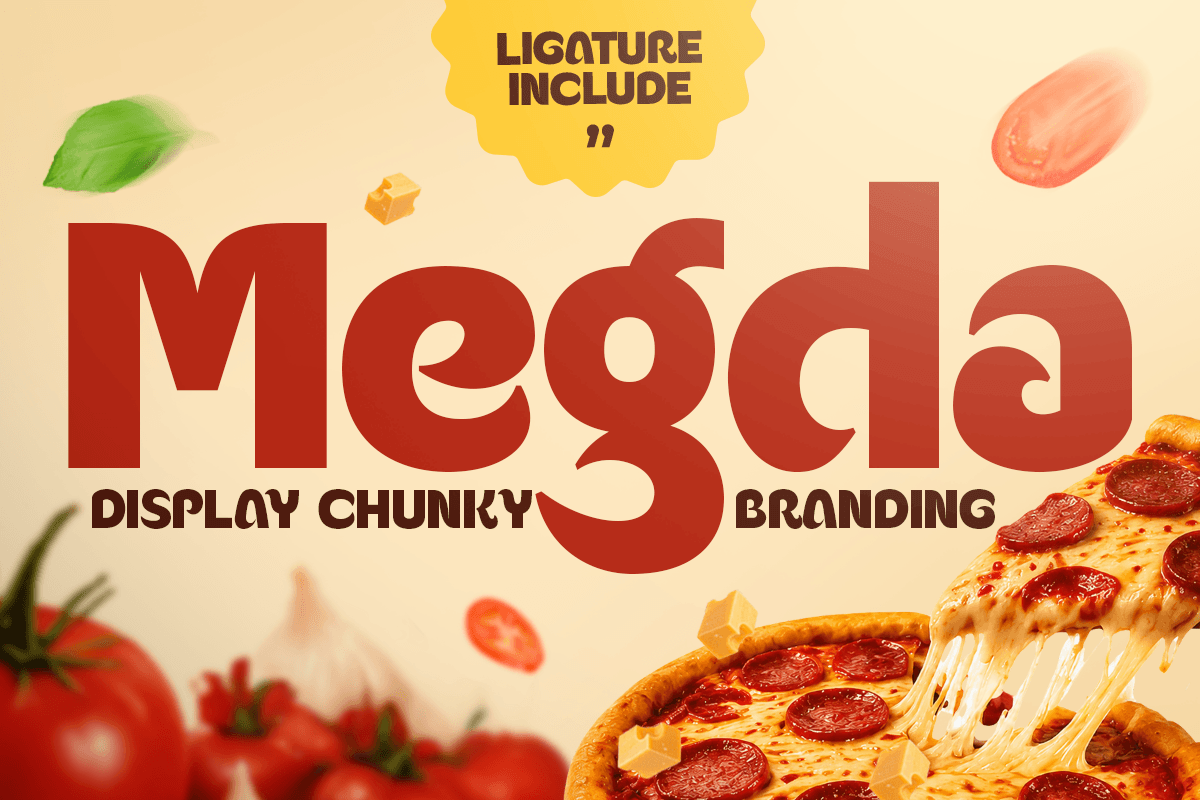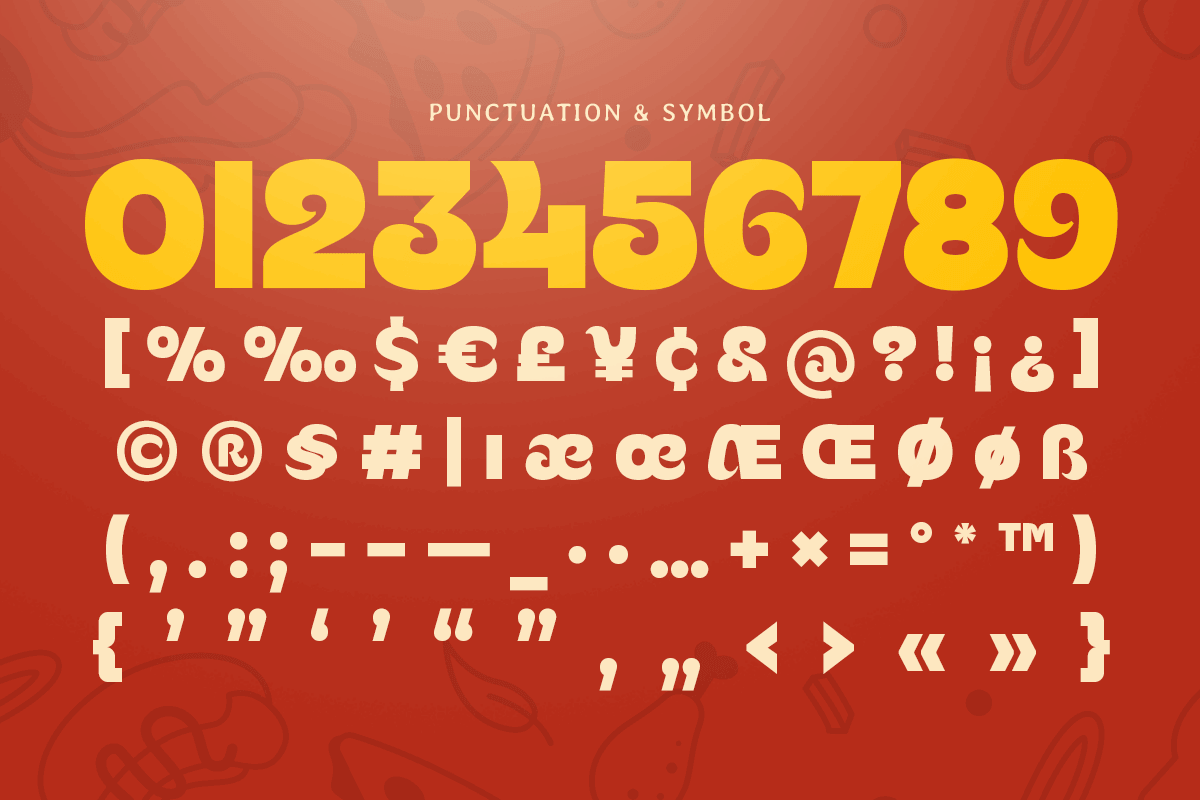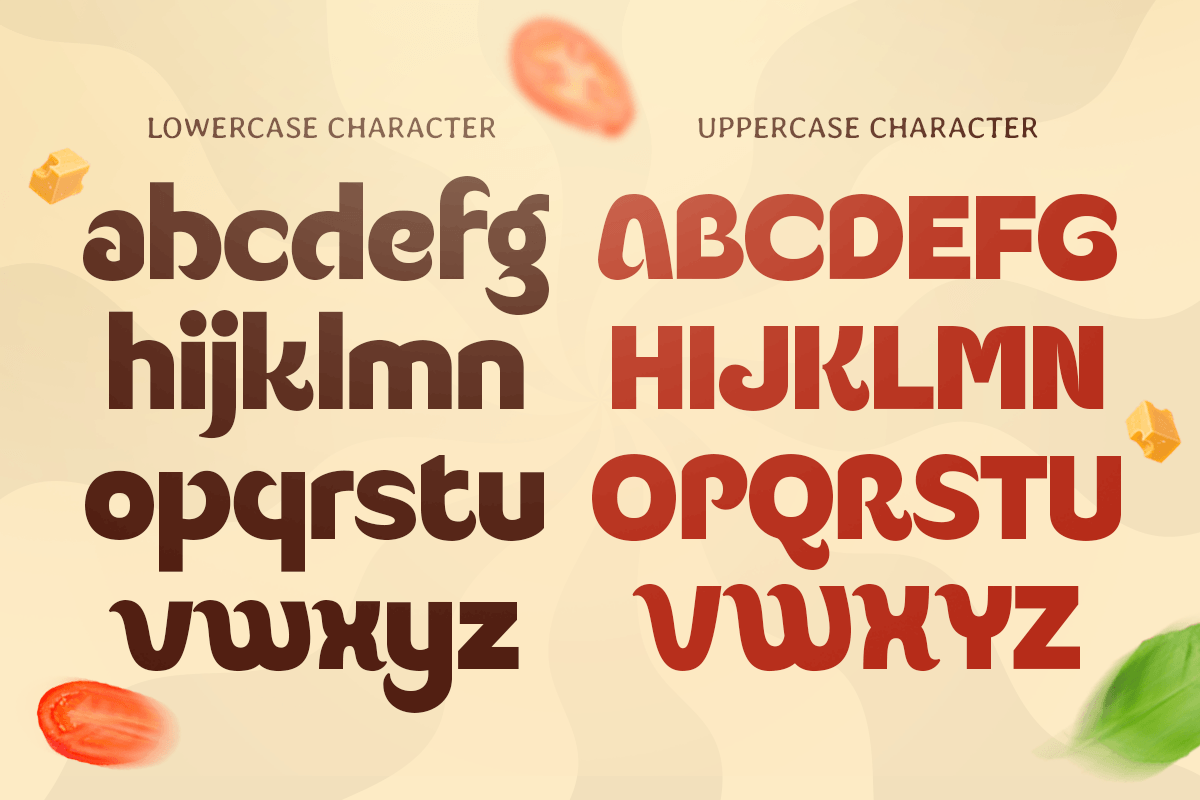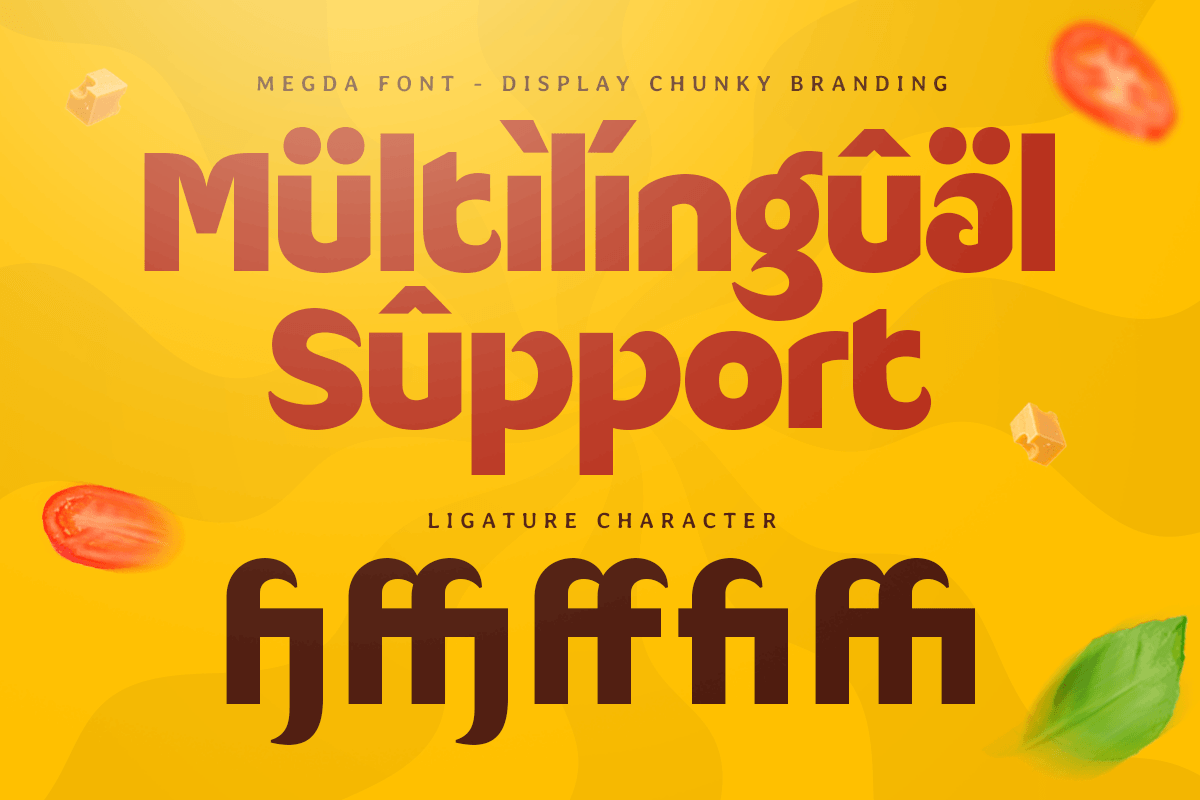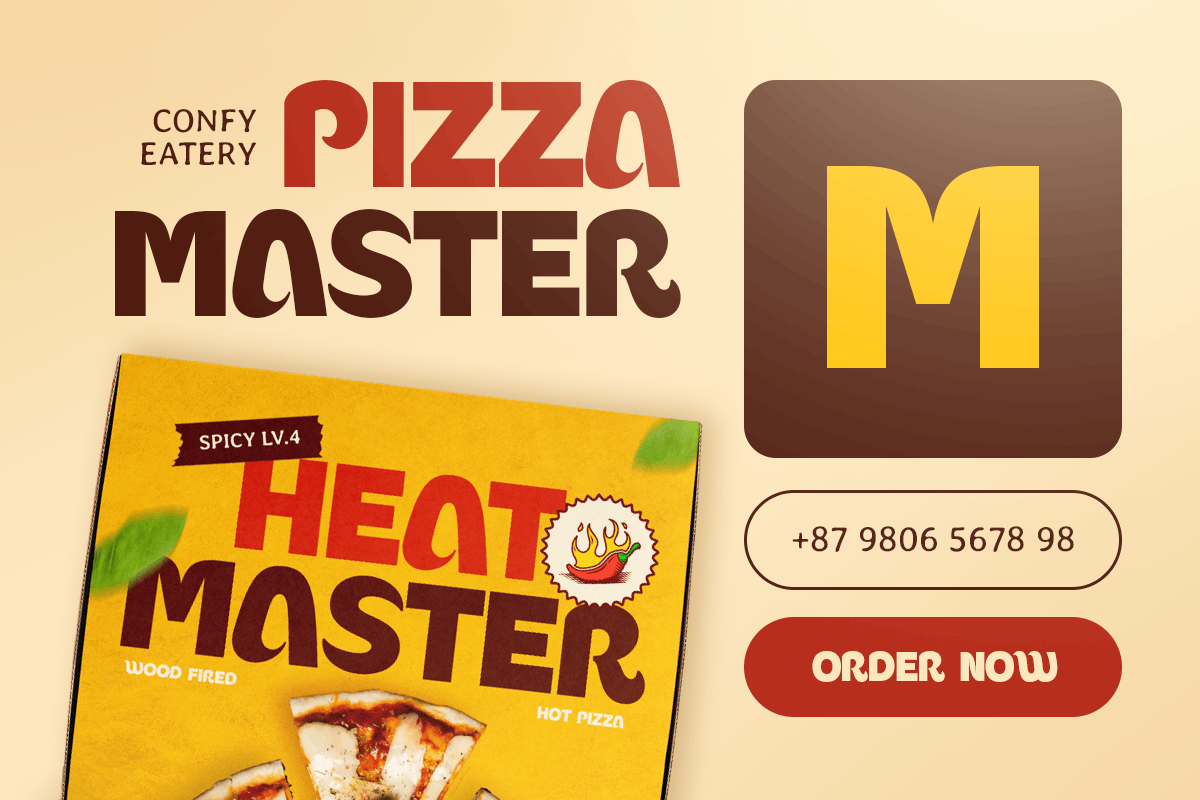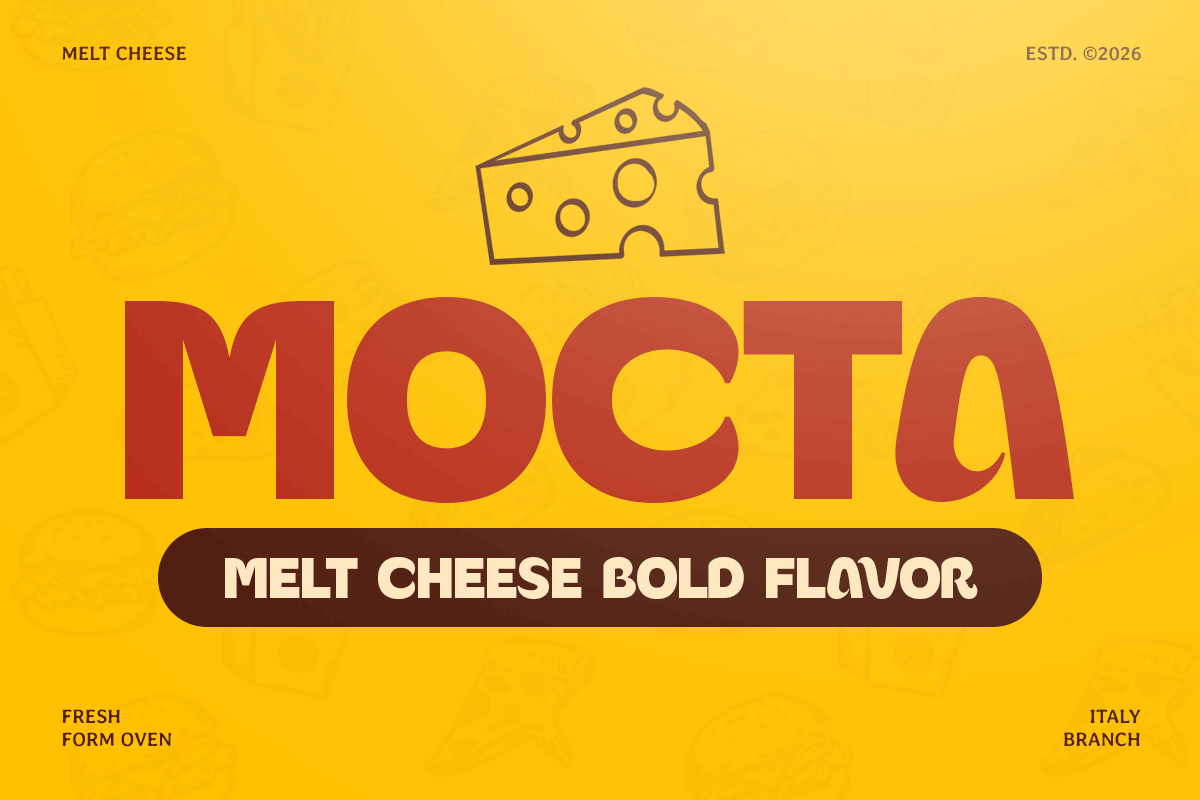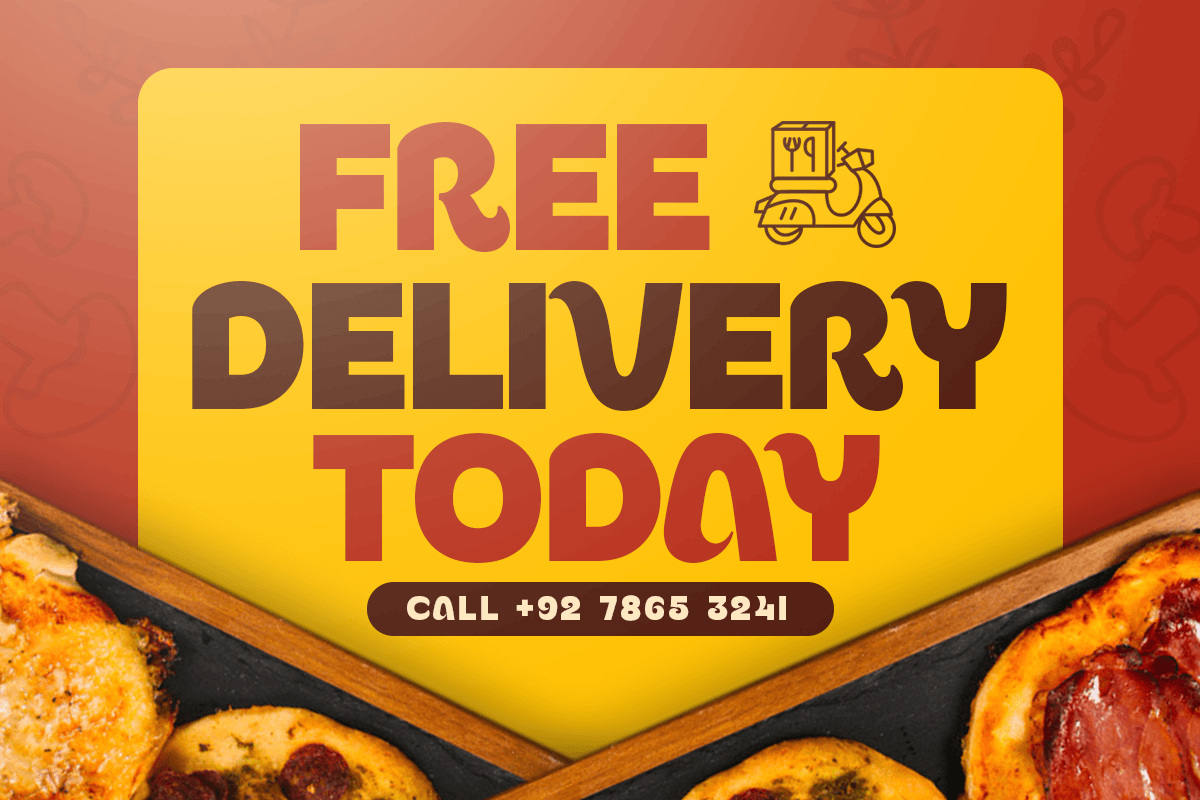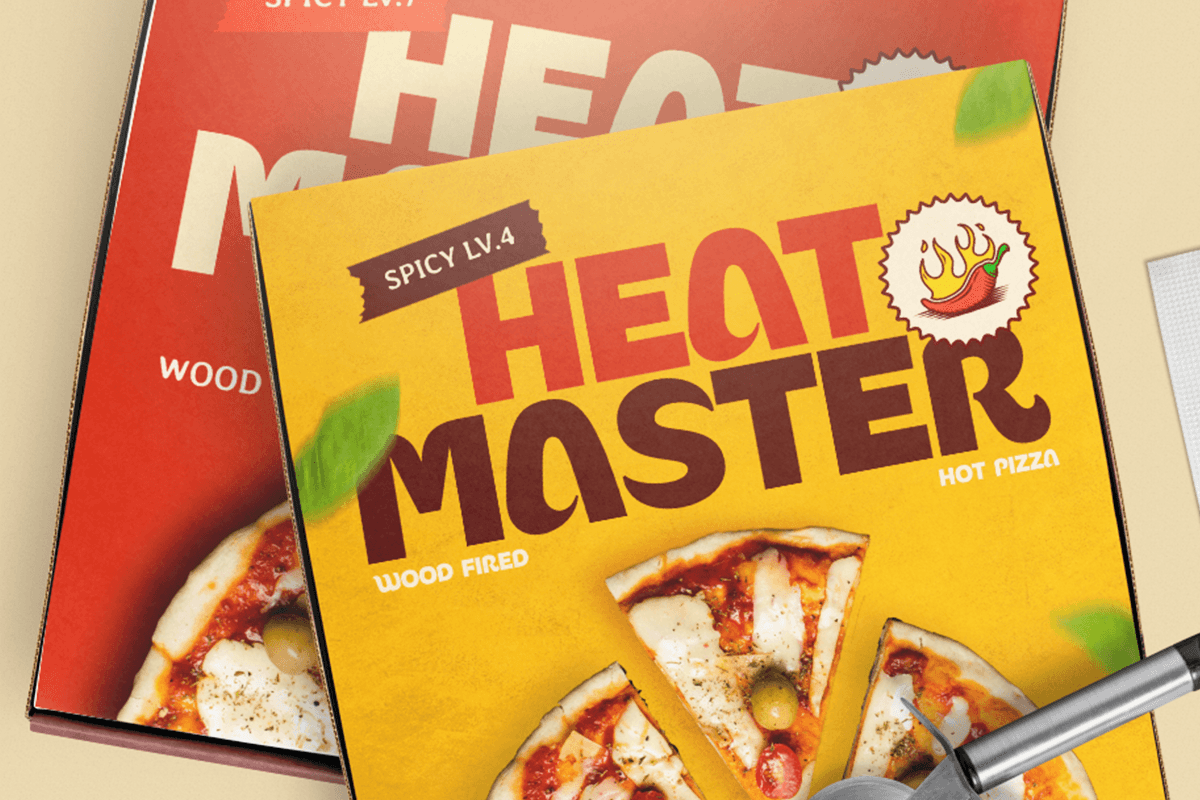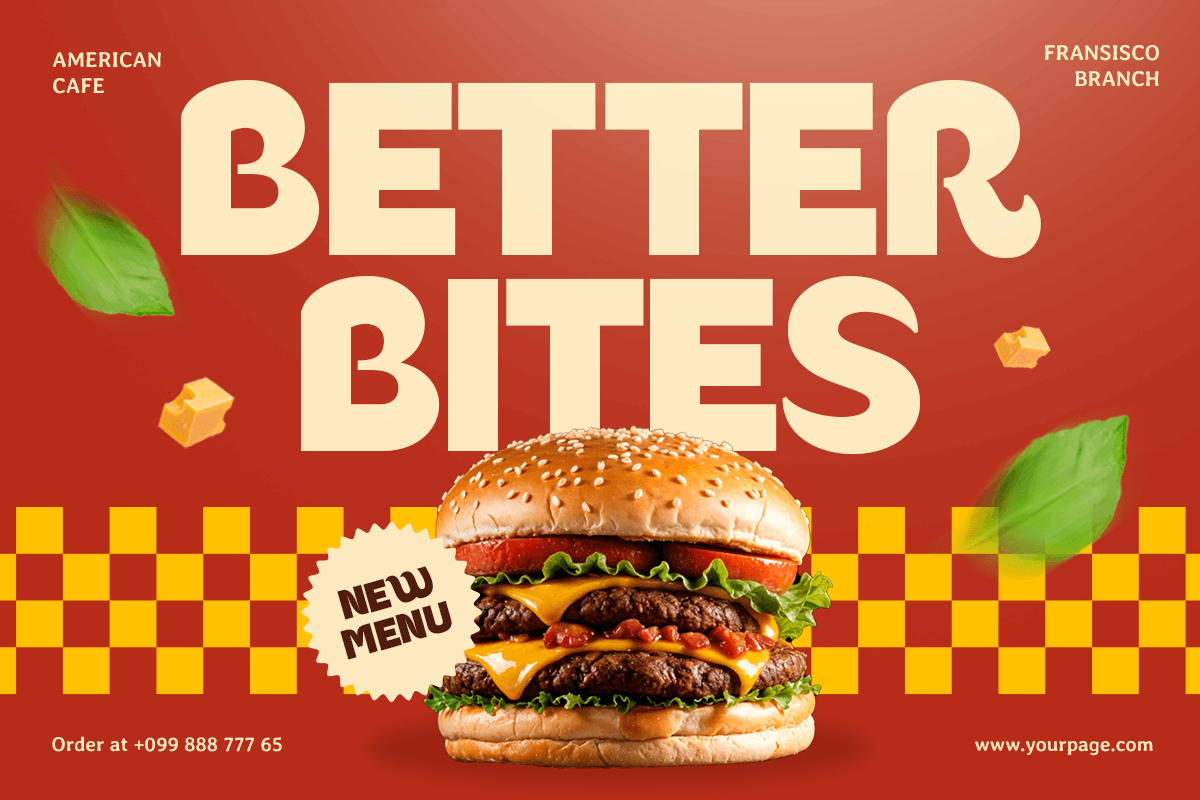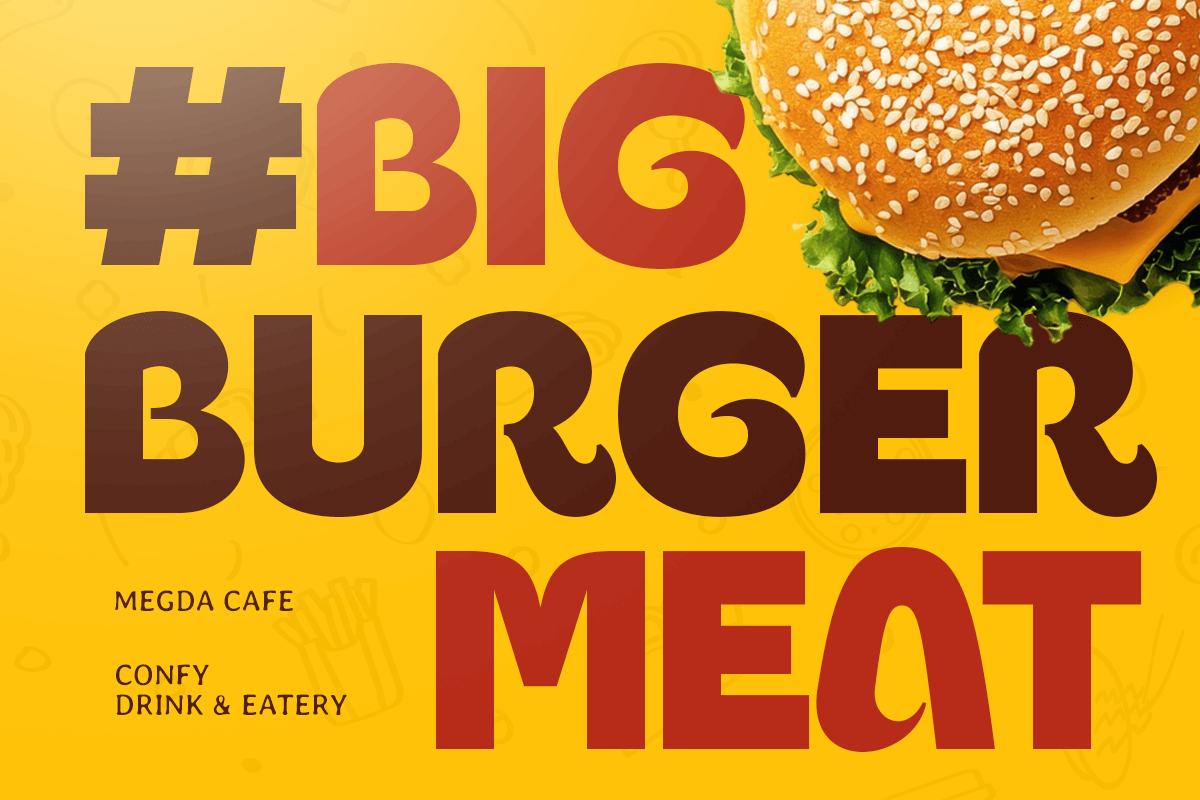
Roca – Display Chunky Font
Roca is a display chunky font built with bold proportions, thick letterforms, and a playful personality. Its strong visual weight creates an expressive, friendly look that feels confident, energetic, and instantly noticeable.
Designed as a bold chunky display font for attention-grabbing typography, Roca works perfectly for logos, brand identity, packaging, posters, headlines, signage, merchandise, advertising, and social media graphics. Its substantial forms are especially effective for food packaging, entertainment brands, apparel, creative products, and youthful campaigns.
From oversized print headlines to colorful digital layouts and web graphics, Roca brings character and impact to every composition. Its distinctive chunky style makes it a versatile choice for designers looking to combine readability with memorable personality across both digital and print projects.
Roca – Chunky Display Font Features
- Bold and chunky display letterforms
- Strong visual weight for eye-catching typography
- Playful style for creative and energetic branding
- Ideal for logos, packaging, posters, and headlines
- Includes uppercase, lowercase, numerals, and punctuation
- Great for digital and print design projects
- Perfect for signage, merchandise, and advertising
- Works beautifully for social media and promotional graphics
Multilingual Support
Afrikaans, Albanian, Asu, Basque, Bemba, Bena, Breton, Chiga, Cornish, Dutch, English, Estonian, Filipino, Finnish, Friulian, Galician, German, Gusii, Indonesian, Irish, Italian, Kabuverdianu, Kalenjin, Kinyarwanda, Luo, Luxembourgish, Luyia, Machame, Makhuwa-Meetto, Makonde, Malagasy, Manx, Morisyen, North Ndebele, Nyankole, Oromo, Portuguese, Quechua, Romansh, Rombo, Rundi, Rwa, Samburu, Sango, Sangu, Scottish Gaelic, Sena, Shambala, Shona, Soga, Somali, Spanish, Swahili, Swedish, Swiss, and more.
Bring bold personality to your designs with Roca – a chunky display font made to stand out. ✨